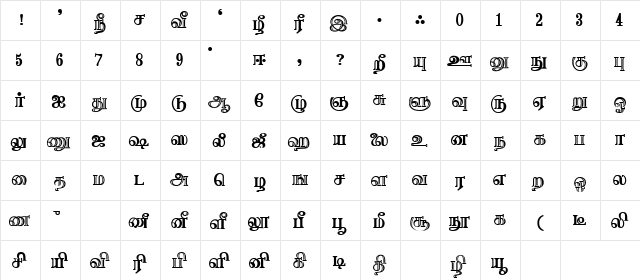
Needhimathi Regular
Design Context for Needhimathi Typeface
Needhimathi takes a measured approach to typography — its balanced proportions and neutral character make it a reliable workhorse for both digital and print work.